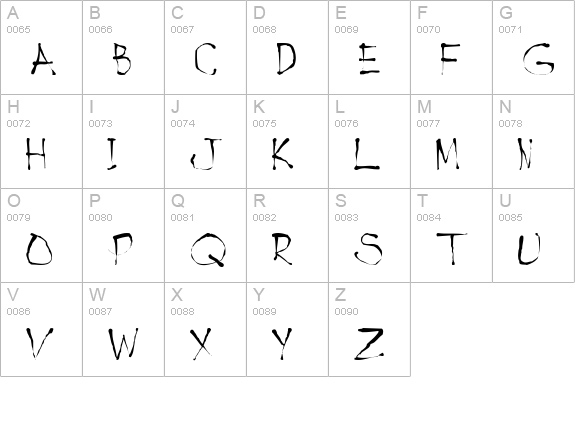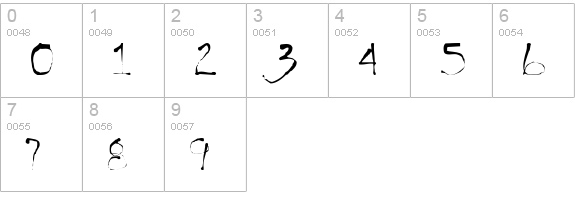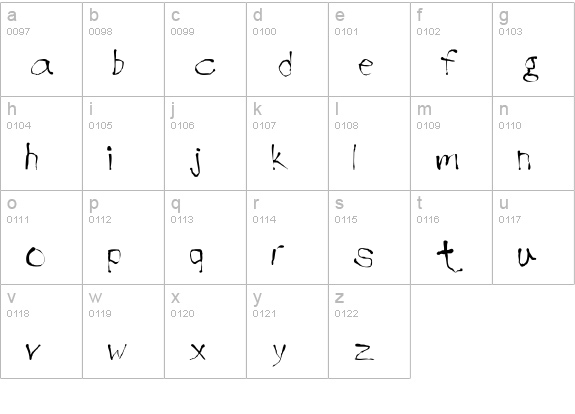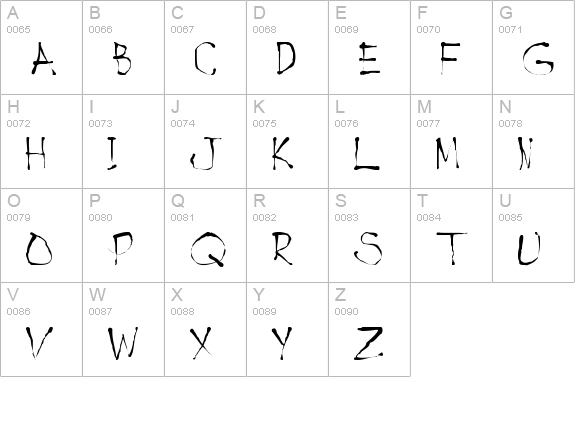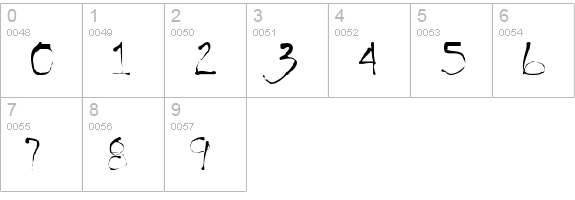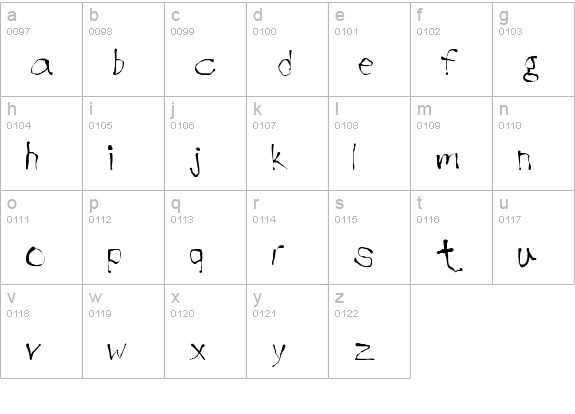
Introducing Handwrite-Inkbl font, a stunning typeface that brings a touch of artistic flair to your projects. With its unique blend of handwritten style and inkblot texture, this font exudes an organic and authentic feel that is sure to captivate your audience. Handwrite-Inkbl font is the perfect choice for those seeking a free-spirited and individualistic look. Whether you're designing a logo, creating a poster, or crafting a personalized invitation, this font will add a creative edge that sets your work apart. The carefully crafted inkblot texture adds depth and character to each letter, giving them a hand-drawn appearance that is both charming and eye-catching. Each stroke of the brush is visible, creating a sense of movement and personality that truly brings your text to life. Not only does Handwrite-Inkbl font offer a visually striking aesthetic, it is also incredibly versatile. Its clean and legible design makes it suitable for a wide range of creative projects, from bold headlines to delicate script. And the best part? Handwrite-Inkbl font is freely available to download at FontsMarket.com. This means you can start using this incredible font in your designs right away, without having to worry about any additional costs. So why wait? Unlock your creativity and make a statement with Handwrite-Inkbl font. Download it for free at FontsMarket.com and start adding a touch of artistic elegance to your designs today.